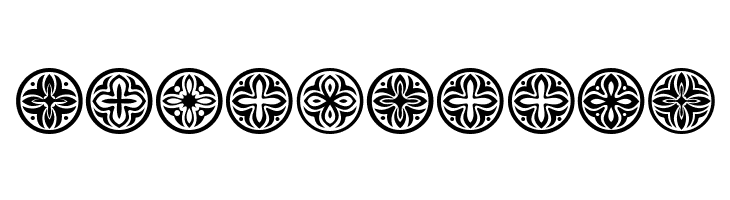
A lively, expressive handwritten font with fluid, cursive strokes.
A festive, decorative font styled as Christmas lights, perfect for holiday-themed projects.
A festive font styled like Christmas lights, perfect for holiday themes.
A whimsical, tall decorative font with playful curves and a festive feel.
A whimsical, festive font with elegant curls and a handwritten calligraphy style.
A playful and elegant script font with decorative swirls and smooth cursive letters.
A playful, bold font with rounded, thick strokes and a whimsical touch.
A playful, hand-drawn font with rounded, narrow characters and a modern, friendly vibe.
A bold, playful font with a hand-drawn, irregular style.
A bold, decorative font with circular cutouts, reminiscent of vintage Western styles.
A whimsical, hand-drawn font with a playful and cartoonish style.
A playful, chunky block font with a hand-drawn, whimsical style.
A bold, playful font with rounded edges and a retro feel.
A display font made up of church-themed pictograms.
A medieval-inspired font with sharp serifs and curved strokes, offering a bold and elegant appearance.
A modern, geometric font with sleek, rounded edges and consistent height.
A playful, casual handwritten font with fluid, connected strokes.
A playful, casual handwritten font with fluid strokes and a dynamic slant.
A clean, modern font with smooth, rounded strokes and excellent readability.
A playful, hand-drawn script font with interconnected characters and a whimsical style.
A geometric, minimalist font with thin lines and consistent stroke width.
A glitch-inspired font with bold, distorted characters and a digital aesthetic.
A series of intricate circular ornaments with bold borders and high contrast.
A playful, decorative font with circus-inspired embellishments.
A bold, decorative font with a vintage circus-inspired style.
A geometric and angular font with a futuristic and abstract style.
An intricate, calligraphic font with bold, angular strokes and decorative flourishes.